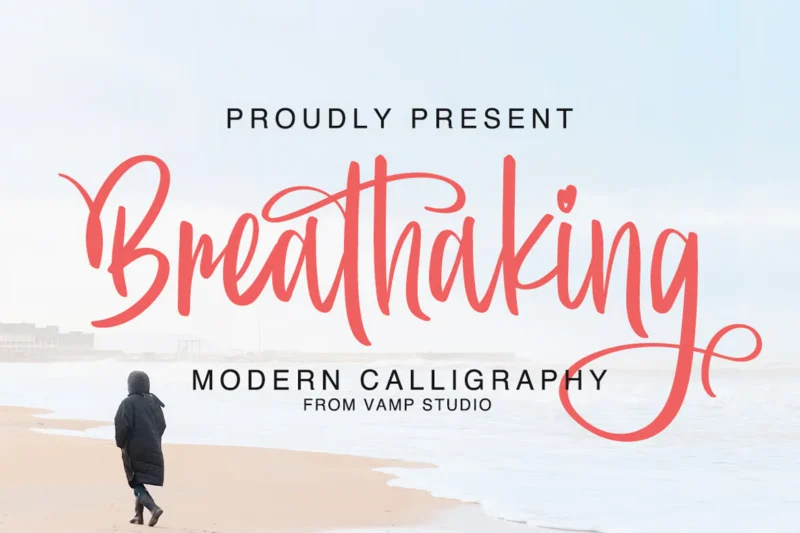
Breathaking – Modern Handwritten Script Font
Breathaking is a modern handwritten script font with smooth, flowing strokes and a romantic touch. Designed to bring warmth and personality to your creative projects, this font is perfect for logos, wedding invitations, product packaging, social media, and branding designs that need an elegant handmade feel.
Its natural curves and stylish alternates give every word a graceful rhythm, while the heart-shaped accents add a charming and friendly vibe.
Uppercase & lowercase characters
Alternates and ligatures for stylish customization
Breathaking combines modern sophistication with handwritten beauty — ideal for adding a personal, romantic touch to any design